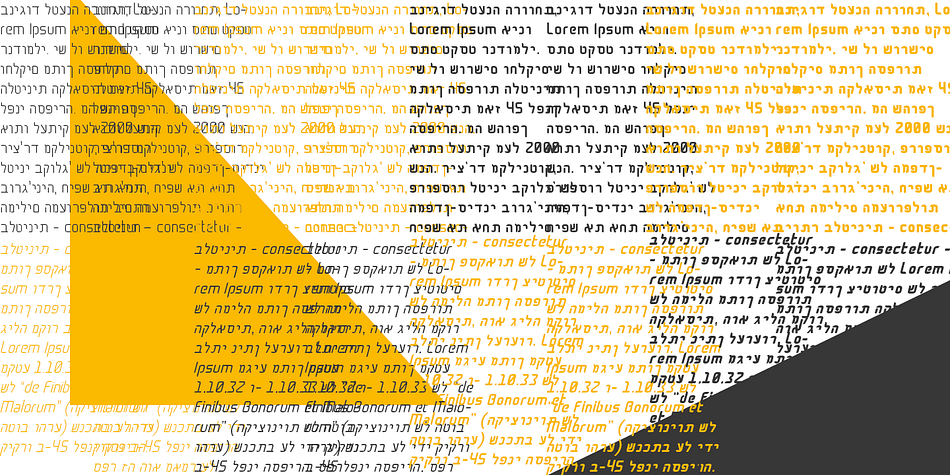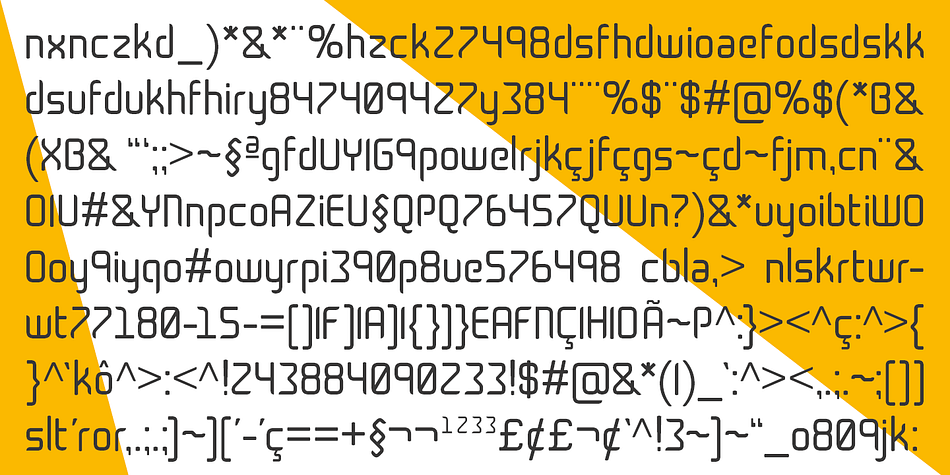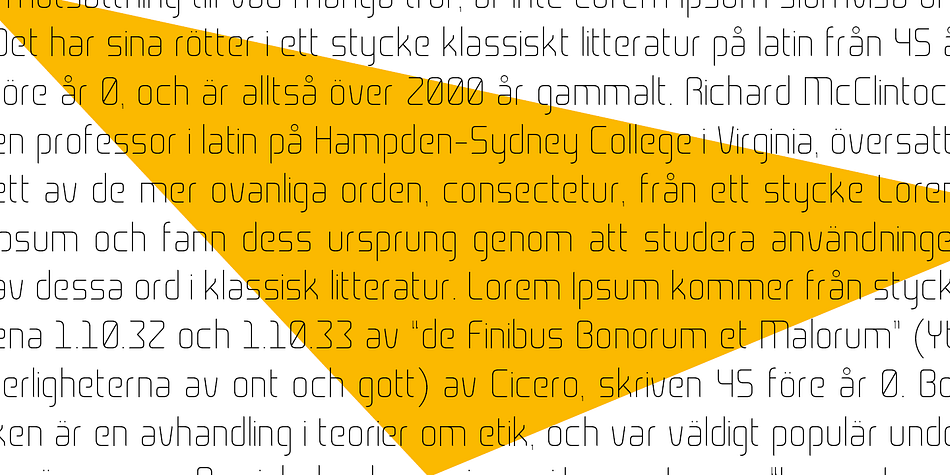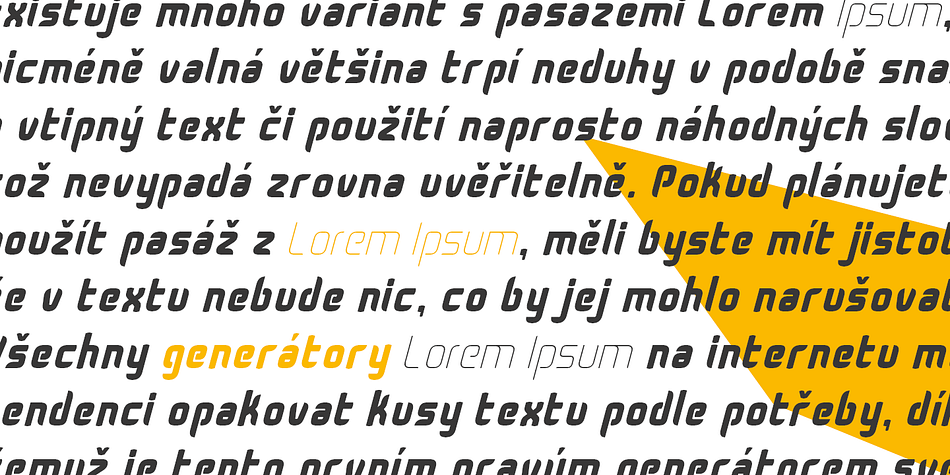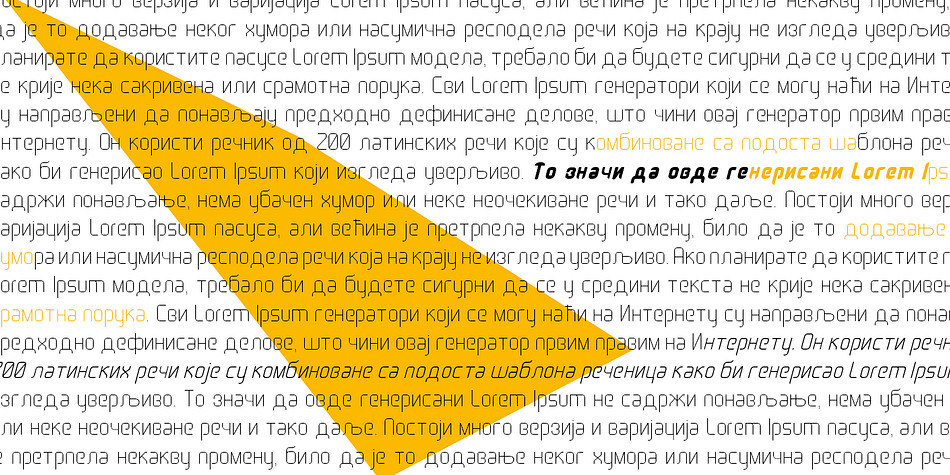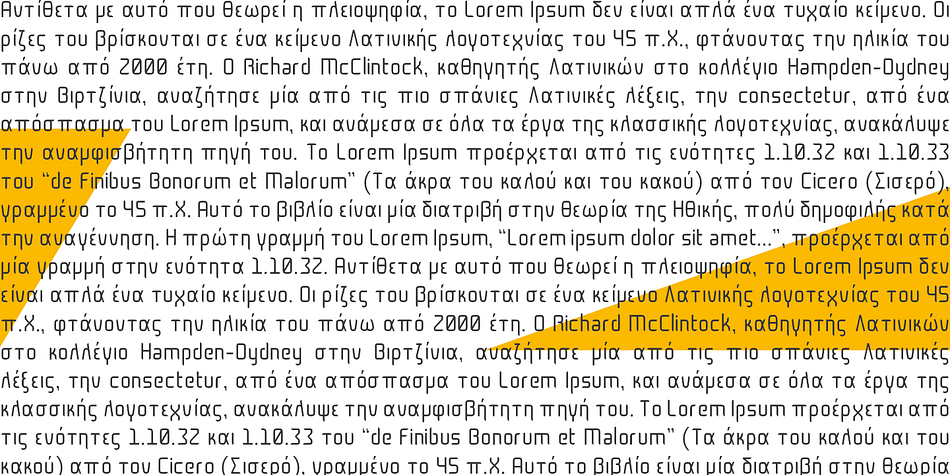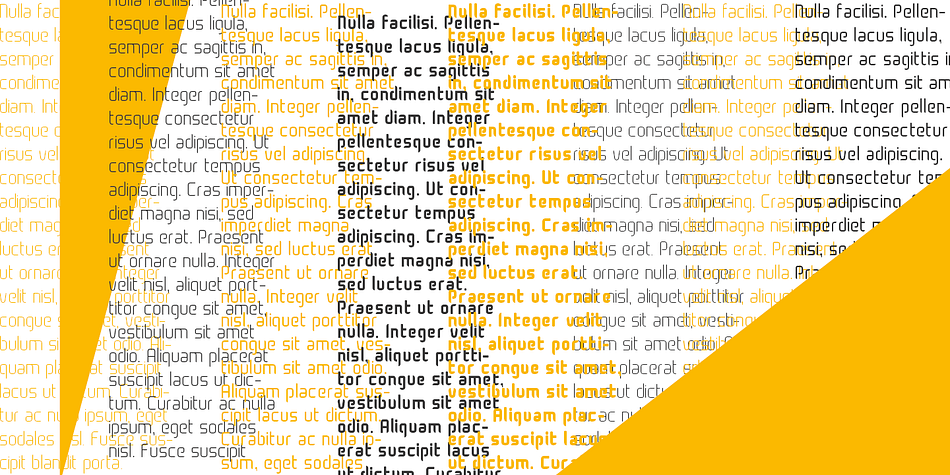
Designed by Leandro Ribeiro Machado, Cogan is a display sans font family. This typeface has ten styles and was published by Leandro Ribeiro Machado.
Cogan was especially designed by Leandro Ribeiro. Created in 2014, this font family has been designed to serve sectors like financial services, modern industries, business and many other activities who needs a modern aspect in their communication.
Its square proportions make the design very readable at a wide range of sizes. It has an aspect of a unique futuristic look and is a very practical choice for modern headlines, branding, title and text.
The family contains a unique stylistic set for titles and is available in 5 weights with corresponding italics. It supports OpenType and offers multilingual support for European languages including Greek and Cyrillic.